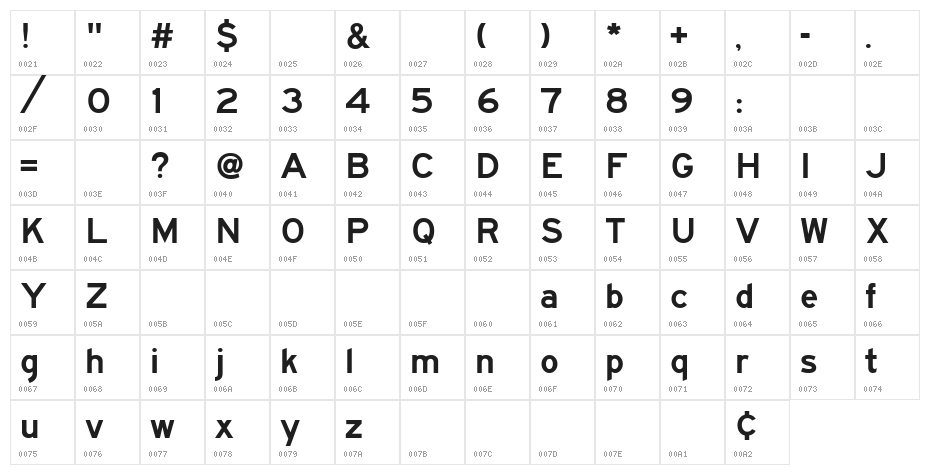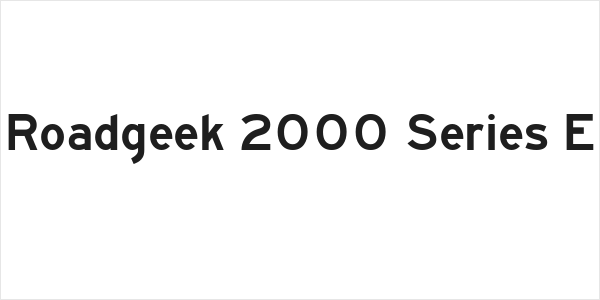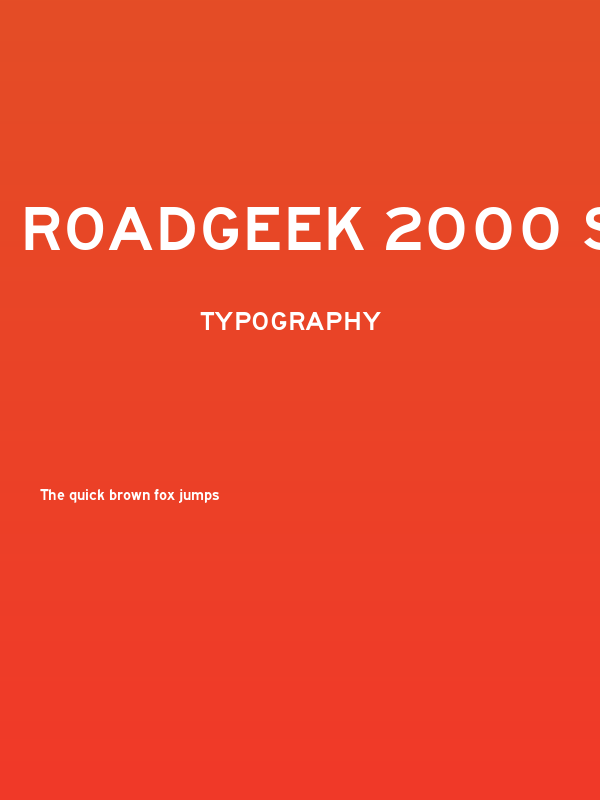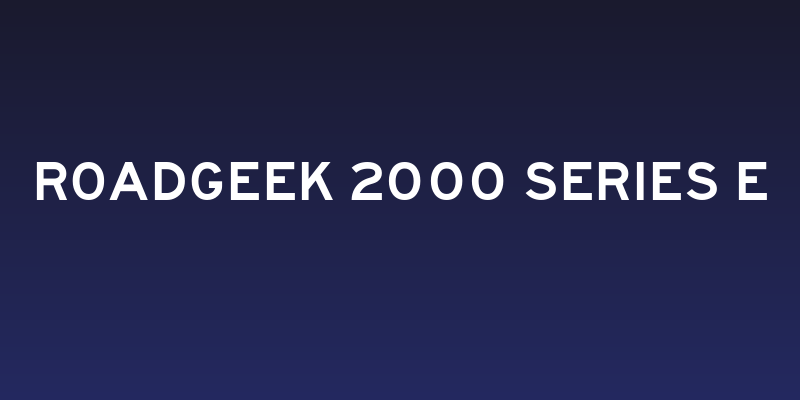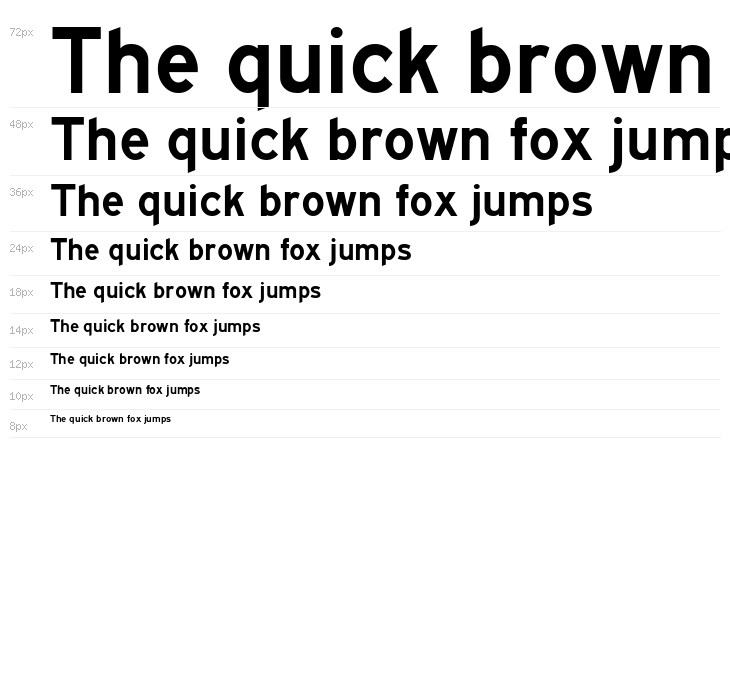
Roadgeek 2000 Series E Font
Roadgeek 2000 Series E Description
This font features a clean and modern sans-serif style, characterized by its bold and uniform stroke width. The uppercase letters are well-proportioned, with a slightly condensed appearance that enhances readability. The lowercase letters maintain a consistent height, contributing to a balanced and cohesive look. Numerals are clear and distinct, making them suitable for various applications. Special characters are straightforward, aligning with the overall minimalist design. The font's simplicity and clarity make it ideal for signage, digital displays, and other contexts where legibility is paramount.
| Use Case | Headlines, Signage, Digital displays |
| Proposed Projects | Ideal for road signage, digital displays, branding, and user interfaces where clarity is essential. |